Ever feel like you're drowning in a visual sea of AI slop? Fortunately, the world of type design seems to be sticking fast to the twin values of innovation and craftsmanship. And if you ever needed proof of that, just check out this month's selection of new typeface releases.
From the first superfamily from Order Type Foundry to a groundbreaking system offering exclusive ownership of typographic variants, these fonts represent the cutting edge of contemporary type design.
So whether you're seeking a versatile workhorse for editorial projects, a distinctive display font for branding, or something that embodies specific cultural references, you'll find thoughtfully designed letterforms here to inspire your creativity.
In short, this May, font designers have once more demonstrated their ability to transform the fundamental building blocks of communication into instruments of purposeful expression. What better time to refresh your typographic palette?
1. Sita Collection by Order Type Foundry
Order Type Foundry's first superfamily is a thoughtful homage to 19th-century Scottish typographic traditions, reimagined for contemporary design needs. The Sita Collection comprises Sita Serif and Sita Sans, with each style offering four weights and corresponding italics.
What makes this superfamily distinctive is its approach to the relationship between serif and sans forms. Rather than blurring the lines between classifications, designer Edouard Berard has created two interconnected families that preserve the distinctive characteristics of their respective genres—Scotch Roman and grotesque—while sharing the same underlying skeletal structure.
This approach ensures optimal form and weight harmony when the two styles are used together, making Sita an exceptionally versatile system for both digital and print use. Overall, Sita's thoughtful balance of historical reference and modern functionality makes it a good choice for anyone seeking typographic cohesion with stylistic variation.
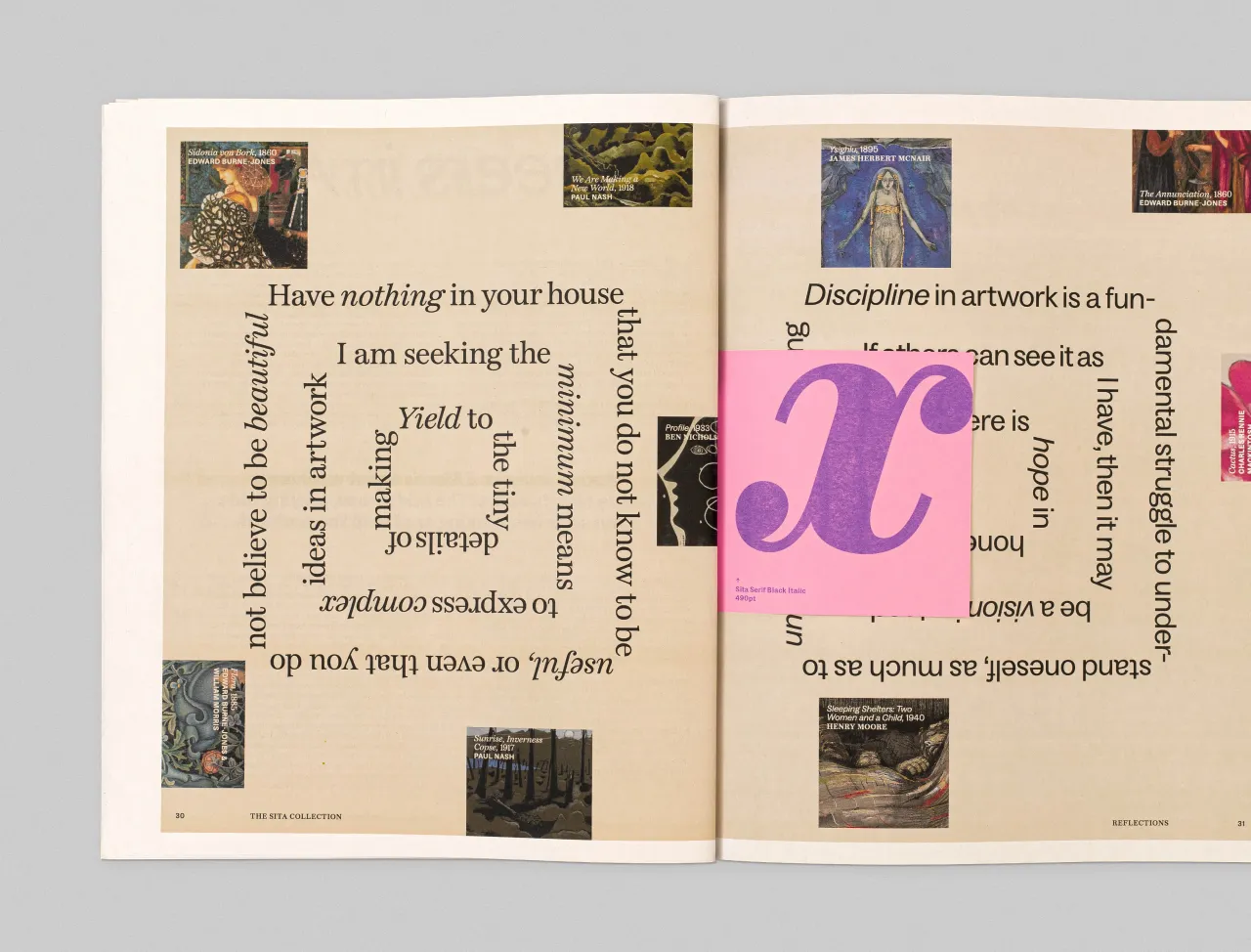
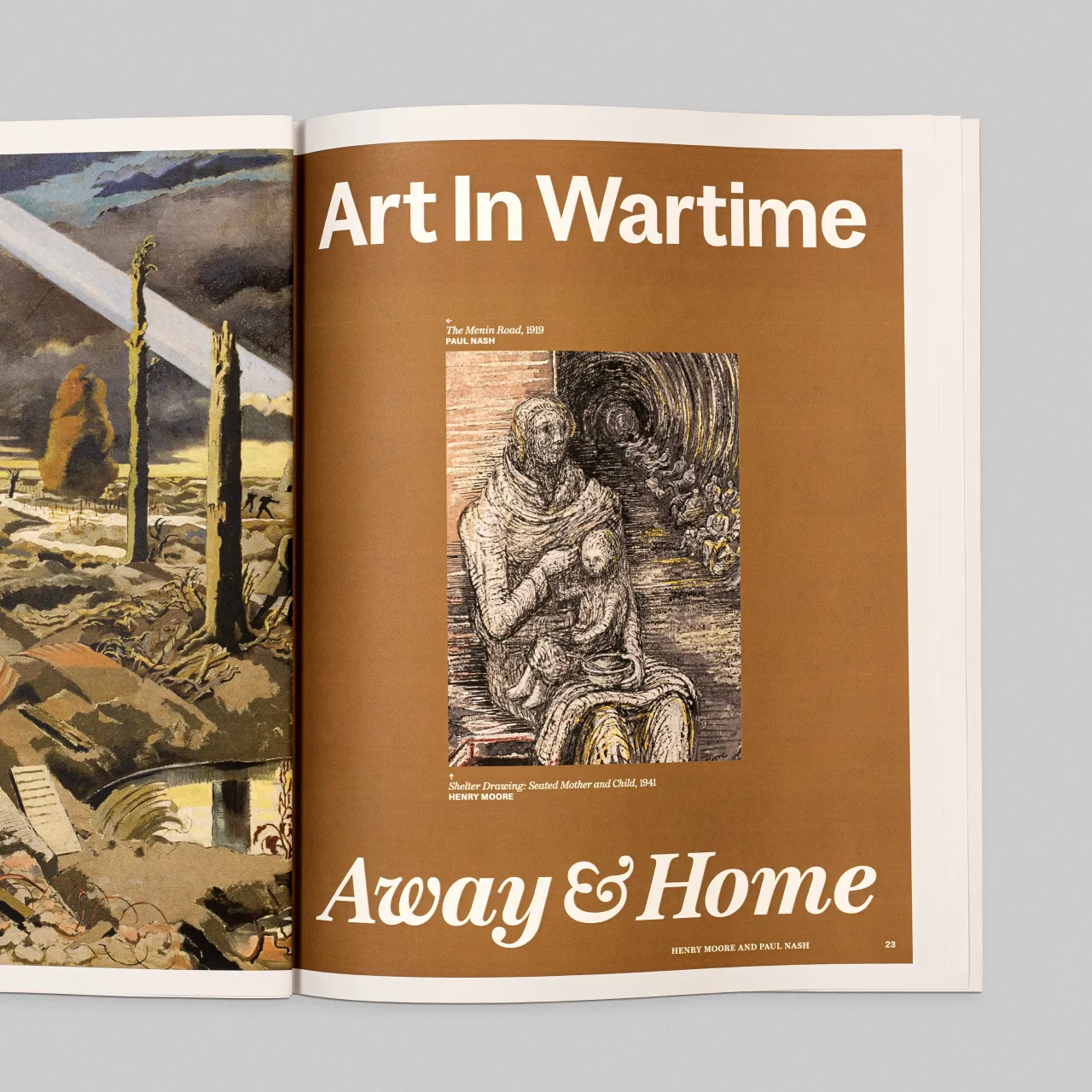
2. Unie by Big Fog Foundry
Unie is a delightfully playful unicase typeface that launched alongside West Virginia-based Big Fog Foundry in April. Designed by founder Brian Dove, this charmingly chunky font offers a single, robust style that balances loose organic qualities with blocky geometric forms.
The nearly square letterforms invite creative exploration and are perfect for stacking, smooshing, and squashing. As Brian explains, "We like to imagine it was sculpted from Play D'oh. It probably makes a cartoon "honk" sound when ya squeeze it." This fun personality makes Unie well placed for projects that require an immediate emotional connection.
Best used in large sizes and short bursts, Unie would work well in logos, candy packaging, comic-book sound effects and motivational posters. Testament to Big Fog Foundry's mission of creating typefaces that are "equal parts fun and functional", it's perfect for any design that requires a vibe of unabashed cheerfulness.
3. Lamington by Rain Foundry
Lamington is a delightfully organic display typeface from Sydney-based designer Carl of Rain Foundry. Its inspiration came from an unexpected source—lettering on a t-shirt the designer spotted while enjoying the beloved Australian cake of the same name.
The typeface captures a carefree spirit through its square-like shapes, spongey texture and cushiony spacing, evoking the warm, delicious qualities of its namesake. Its bold, organic forms make it ideal for headlines that require liveliness and personality.
For its creator, Lamington represents more than just a new typeface; it marks a personal rekindling of passion for type design. "This font helped me learn that it's the joy that is important in any creative endeavour," Carl explains. This authentic enthusiasm shines through in every character, resulting in a typeface that balances playfulness with purposeful design.
4. Only Yours by Rosetta Type
In a bold innovation that challenges conventional ideas about typeface ownership and identity, Rosetta Type's Only Yours introduces a unique business model. Each variant is available exclusively to a single customer. "Think of it as an NFT that's actually useful," they explain.
The system generates nine new variants daily, each featuring a different combination of characteristics from the extensive design space. Once purchased, that specific variant becomes unavailable to other customers, ensuring a truly unique typographic voice for each buyer.
This novel approach plays with notions of digital ownership and originality in type design, pushing the boundaries of how we think about visual identity. For designers seeking distinctive typography that no one else can use, Only Yours offers an intriguing new possibility.
5. Marsam Text by Typonym
Marsam Text represents a thoughtful evolution of designer Evan Deterling's Marsam slab serif, meticulously optimised for editorial applications. Rather than simply scaling the original design, Deterling has redrawn the typeface with semi-condensed proportions that improve copyfit while providing more even rags and justification.
This is no mere mechanical adjustment: most glyphs have been completely reconceived to suit the narrower metrics without the distortions that often plague digitally scaled typefaces. The result maintains perfect harmony with the original Marsam family while offering enhanced performance in text settings.
With 14 fonts in the family, Marsam Text provides exceptional versatility for designers working with long-form content, particularly in newspaper and publishing contexts where space efficiency is crucial. However, its distinctive character also allows it to shine in display applications, making it a remarkably flexible addition to any typographic toolkit.
6. Intervention by Applied Systems Design Studio
Rooted in early 20th-century Eastern European Constructivist design, Intervention is a striking display font from Applied Systems Design Studio, a relatively new foundry launched in November 2024. The typeface was originally created for Taktiky Studio's exhibition in Prague titled "Čekání Proměny," which explored the impact of a new metro route through a series of site-specific interventions.
This cultural and contextual grounding gives Intervention a distinctive personality that balances historical reference with contemporary application. Initially designed for Czech, Slovak and English languages, the font has now been expanded and refined for commercial release.
As part of Applied Systems Design Studio's small but growing catalogue, Intervention reflects the foundry's commitment to creating type-led visual identities with unique character and purpose. Its distinctive aesthetic makes it particularly suitable for projects requiring a bold, conceptually driven typographic voice.
7. Indiana by 205TF
Indiana, designed by Malou Verlomme for 205TF, is a typeface built on fascinating contradictions—combining tight proportions with soft geometry and bold decisions with refined functionality. Its development emerged from seemingly irreconcilable constraints, yet the result is both highly practical and visually distinctive.
The philosophy behind Indiana mirrors modern pneumatic engineering, balancing flexibility with strength, comfort with energy and speed with calm. Its extremely short ascenders and descenders maximise vertical space efficiency, giving text a dense, impactful presence.
Available in six weights from Thin to Black, each with matching italics, Indiana offers exceptional versatility for contemporary design applications. Its extensive range of stylistic alternates further extends its expressive capabilities, allowing designers to fine-tune their typographic voice—from clean modernism to more experimental approaches.
8. FH Lecturis by Typografische
Part of Fatih's recently renewed catalogue at Typografische, FH Lecturis is a neo-grotesque that draws inspiration from Wim Crouwel's rational grid systems and the structural clarity of Akzidenz Grotesk. Its design philosophy balances mechanical precision with subtle human touches.
The typeface's modular core is softened through rounded terminals and careful optical adjustments, creating a harmonious tension between rigid structure and organic warmth. This makes FH Lecturis particularly well-suited for editorial systems and institutional identities, where systematic order must coexist with approachable communication.
With its focus on visual clarity at scale, FH Lecturis exemplifies Typografische's commitment to creating typefaces that serve practical needs while maintaining distinctive character. It's a thoughtful addition to the neo-grotesque category that finds its own voice through careful attention to detail and nuanced design decisions.
9. ALT Nadrey by ALT.tf
ALT.tf, which evolved from the Femme Type initiative, continues its mission of increasing diversity in type design through the release of ALT Nadrey. Created by Ivorian Coast type designer O'Plérou in collaboration with artist Obou Gbais, this font makes an important contribution to a field where African designers remain underrepresented.
Described by its creator as a "typographical rendition of love," ALT Nadrey draws inspiration from 90s poster fonts, combining narrow-ish, rounded letterforms with a contemporary sensibility. Its gentle curves and subtle serifs create a sophisticated softness while maintaining refined elegance.
The name "Nadrey" means "My heart" in Bété, O'Plérou's mother tongue, reinforcing the typeface's connection to personal and cultural identity. This release exemplifies ALT.tf's commitment to amplifying voices historically underrepresented in type design while delivering a distinctive typographic tool with widespread practical application.
10. Sofia Pro by Mostardesign
Fifteen years after its initial release, Olivier Gourvat's Mostardesign has launched an all-new version of Sofia Pro, one of the world's most recognisable and widely used typefaces.
The revival of this modern classic represents an important moment for a font that has become truly ubiquitous. Sofia Pro's adoption by global brands like Pepsi, TikTok and Unilever has cemented its place as a familiar presence in contemporary visual communication, even for those who can't identify it by name.
This major update expands the family to 64 fonts across four distinct widths: Normal (100), Narrow (90), Condensed (80) and Compact (70). Available in variable font format, the new release offers unprecedented flexibility while maintaining the friendly personality and welcoming disposition that made Sofia Pro an international favourite. The expansion also includes support for additional scripts, including Cyrillic, Greek and Vietnamese, making it even more versatile for global brands.